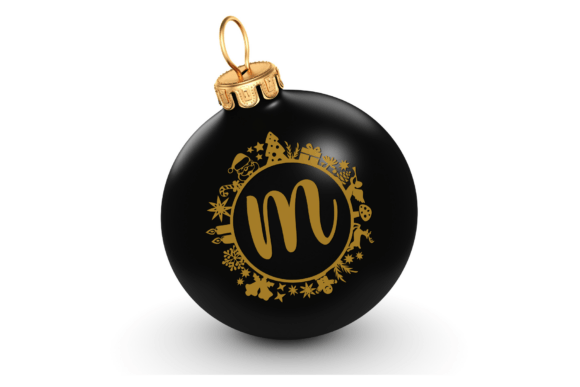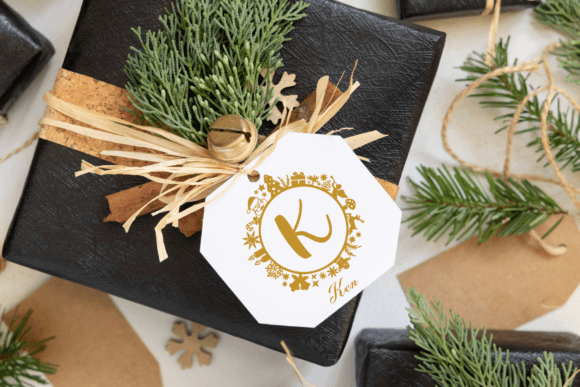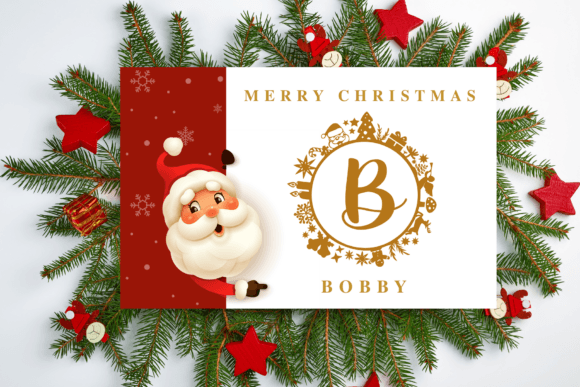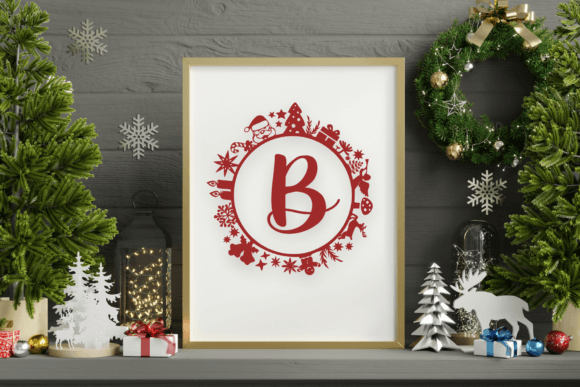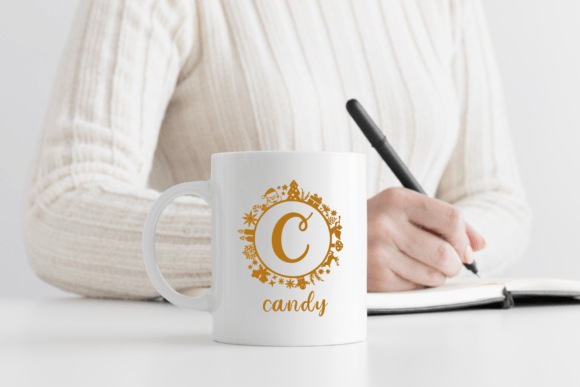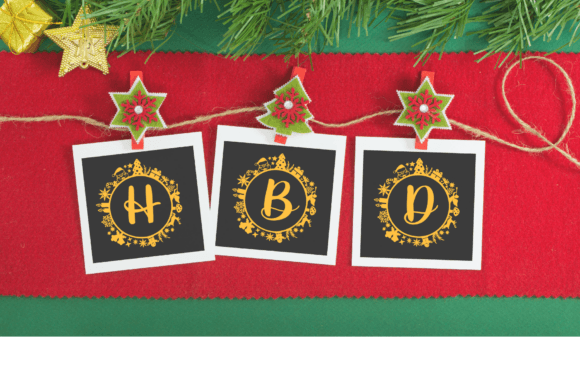
Christmas Festive Monogram Font: Add a Touch of Holiday Cheer to Your Designs
Are you looking for a fun and festive font to add a touch of holiday cheer to your designs? Look no further than the Christmas Festive Monogram Font! This decorative font is specifically designed for the holiday season, featuring hand-written, playful letters with Christmas-themed details that are sure to make your designs stand out.
What is Christmas Festive Monogram Font?
Christmas Festive is a monogram font that is perfect for creating personalized holiday cards, invitations, and festive designs. The font features decorative, hand-written letters with Christmas-themed details such as holly leaves, snowflakes, and bells. The playful and fun design of the font makes it ideal for adding a touch of holiday cheer to any design.
Key Features of Christmas Festive Monogram Font
- Hand-written and playful design: The font features hand-written, playful letters that give it a personal and festive touch.
- Christmas-themed details: The font includes Christmas-themed details such as holly leaves, snowflakes, and bells that add to its festive charm.
- Monogram style: The font is designed in a monogram style, making it perfect for creating personalized holiday cards and invitations.
- Decorative and festive: The font is designed to be decorative and festive, making it perfect for adding a touch of holiday cheer to any design.
Uses of Christmas Festive Monogram Font
Christmas Festive Monogram Font is a versatile font that can be used in a variety of ways to add a touch of holiday cheer to your designs. Here are some ideas:
- Holiday cards and invitations: Use the font to create personalized holiday cards and invitations that are sure to impress.
- Festive designs: Use the font to add a touch of holiday cheer to your festive designs, such as holiday-themed posters, flyers, and brochures.
- Crafting and DIY projects: Use the font to add a personal touch to your crafting and DIY projects, such as holiday-themed scrapbooking and journaling.
- Social media graphics: Use the font to create festive social media graphics that are sure to stand out.
Tips for Using Christmas Festive Monogram Font
Here are some tips for using Christmas Festive Monogram Font in your designs:
- Use it sparingly: Use the font sparingly to add a touch of holiday cheer to your designs. Overusing the font can make your designs look cluttered and overwhelming.
- Pair it with other fonts: Pair the font with other fonts to create a unique and interesting design.
- Experiment with colors: Experiment with different colors to find the perfect combination that works with the font.
- Have fun: Most importantly, have fun with the font! The Christmas Festive Monogram Font is designed to be fun and festive, so don’t be afraid to get creative and try new things.
Christmas Festive Monogram Font is a fun and festive font that is perfect for adding a touch of holiday cheer to your designs. With its hand-written, playful letters and Christmas-themed details, it’s ideal for creating personalized holiday cards, invitations, and festive designs. Whether you’re a designer or a crafter, this font is sure to be a great addition to your holiday design toolkit.